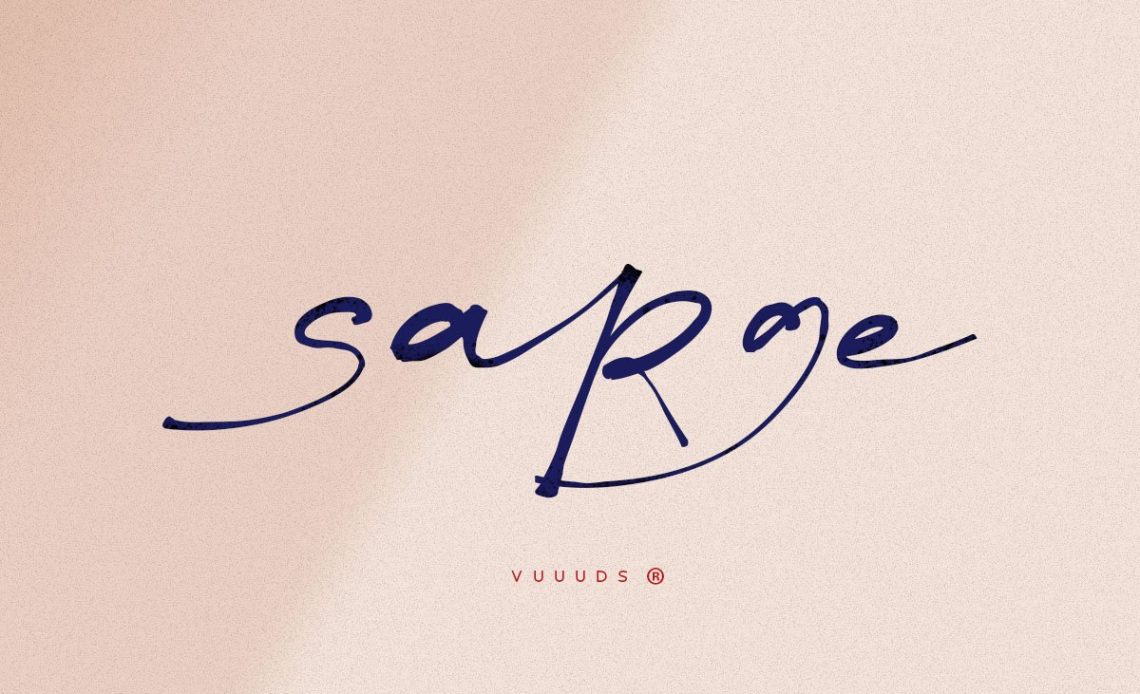
Introducing Sarge Font, a modern script font that will elevate your text to new heights of beauty. Crafted with precision and care by the talented Agung Syaifudin, every single letter in this font exudes elegance and style.
With its versatile script style, Sarge Font is perfect for a wide range of projects. Whether you're designing a book, a children's book, or even a photography watermark, this font will add a touch of sophistication to your work. Its graceful curves and flowing lines make it ideal for quotes, blog headers, posters, wedding materials, branding, logos, fashion designs, apparel, letters, invitations, stationery, and so much more. The possibilities are endless!
One of the standout features of Sarge Font is its alternate glyph. This means you can easily access different variations of the letters, allowing you to create unique and personalized designs. Mac users can access the alternate glyph through Font Book, while Windows users can use the Windows Character Map. We've even included a tutorial link inside the zip file to guide you through the process.
But that's not all. Sarge Font also offers extensive support for foreign languages. From ÀÃ�ÂÃÄÅÆÇÈÉÊËÌÃ�ÃŽÃ�Ã�ÑÒÓÔÕÖØÙÚÛÜÃ�ßà áâãäåæçèéêëìÃîïðñòóôõöøùúûüýÿ, this font has got you covered. No matter what language you're working with, Sarge Font will ensure that your text looks stunning and professional.